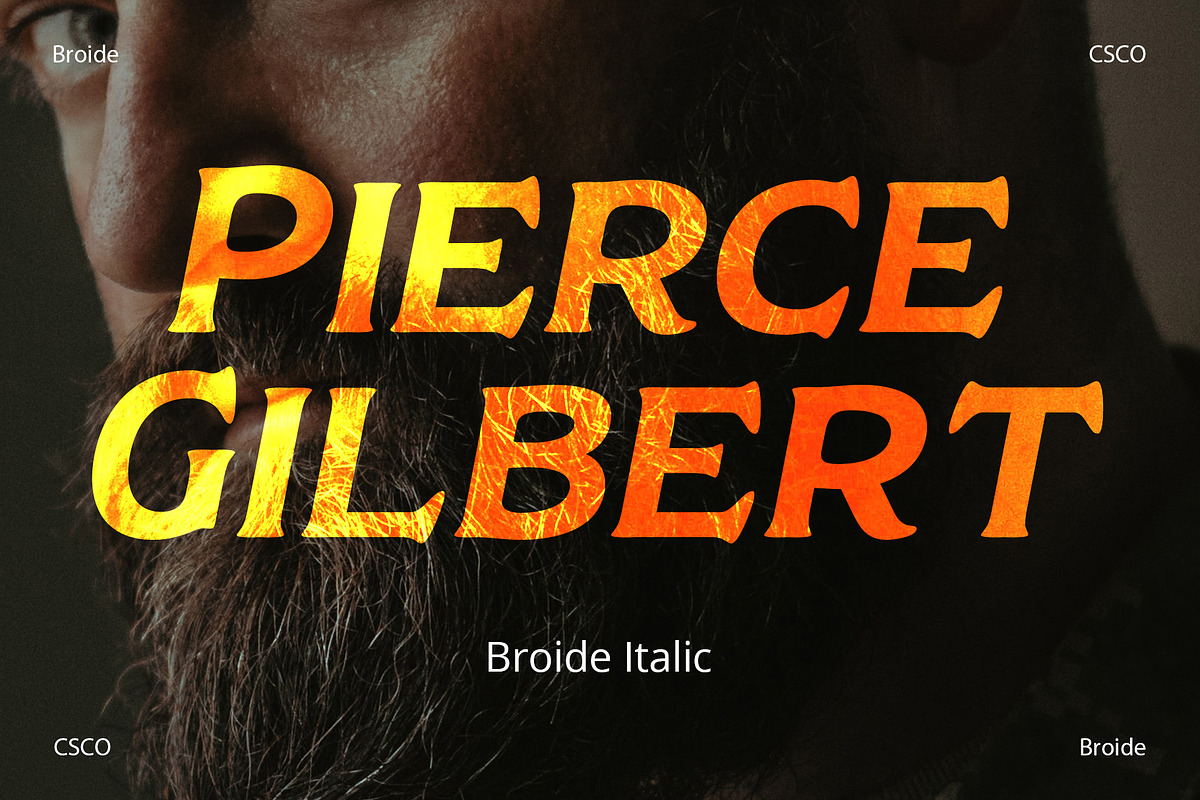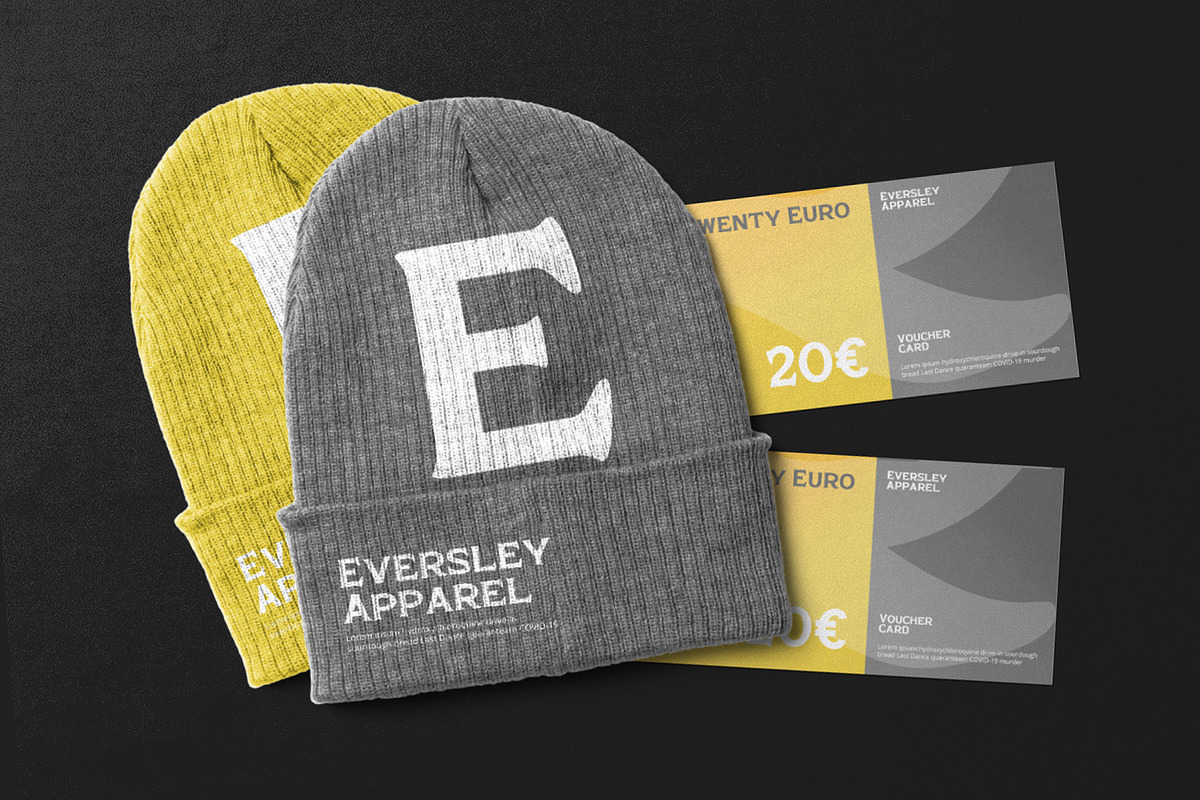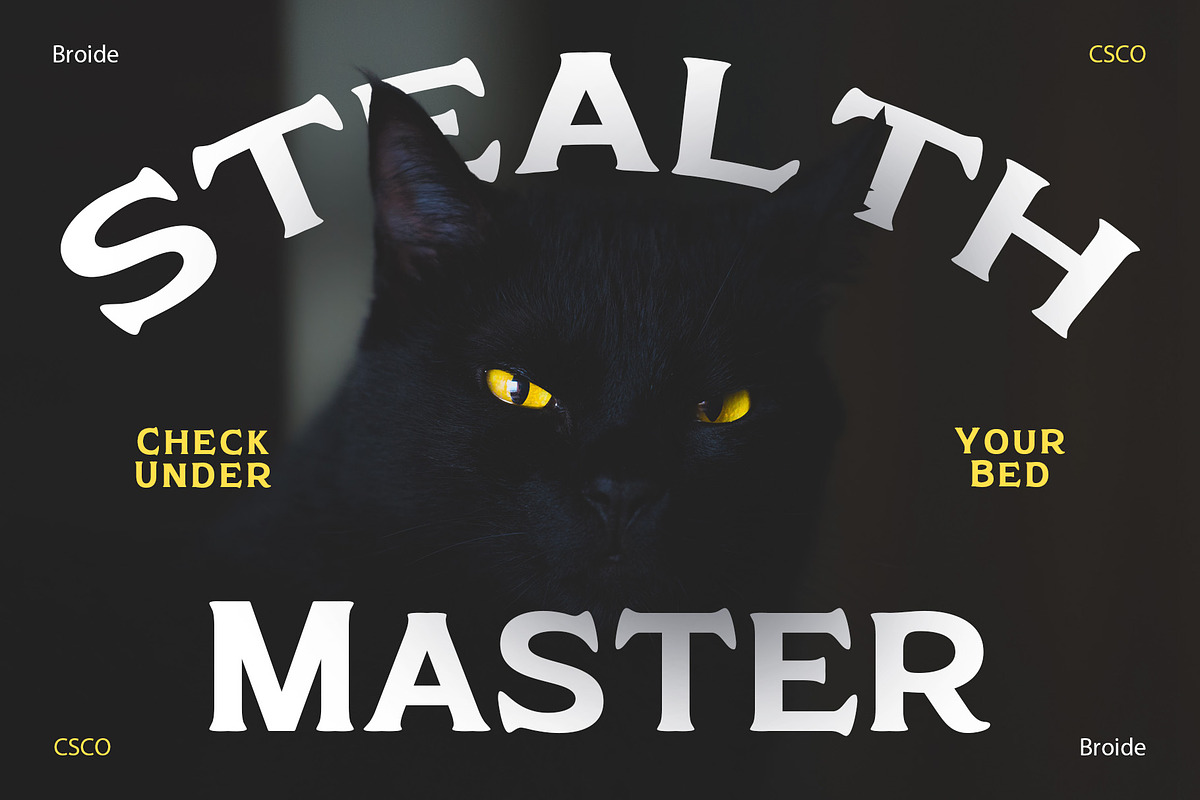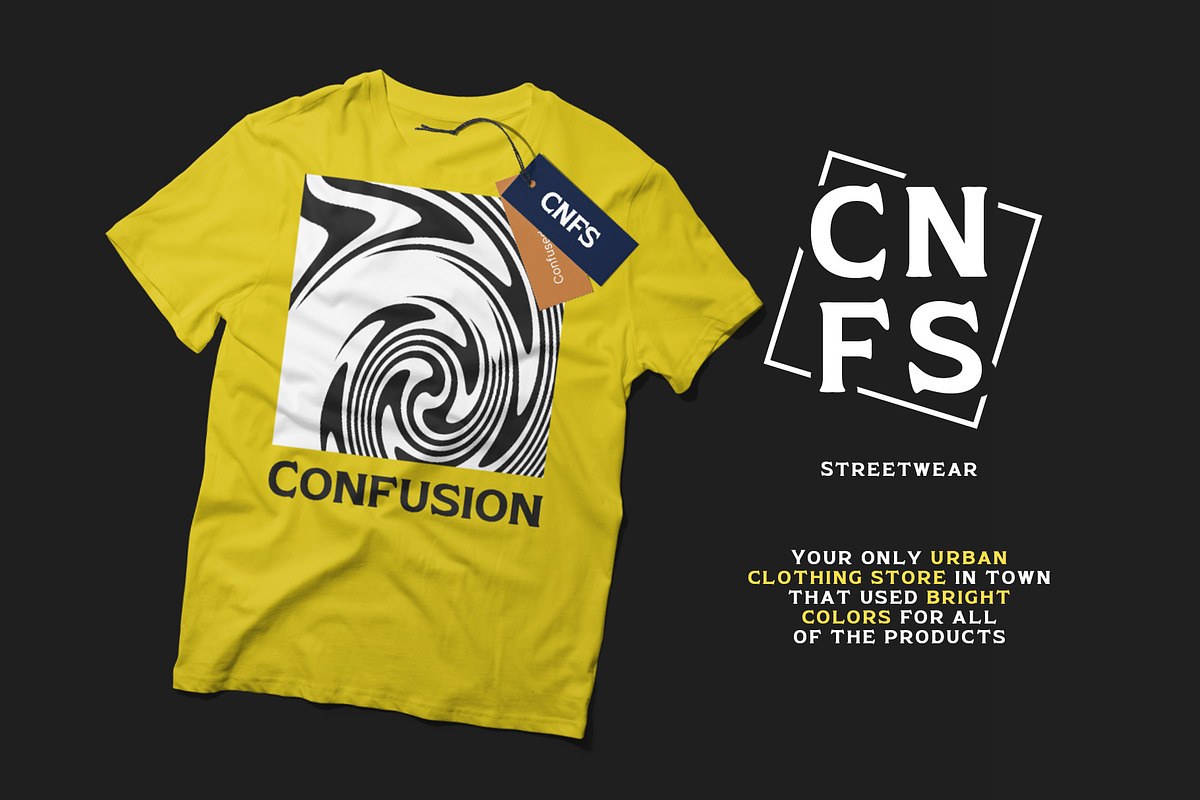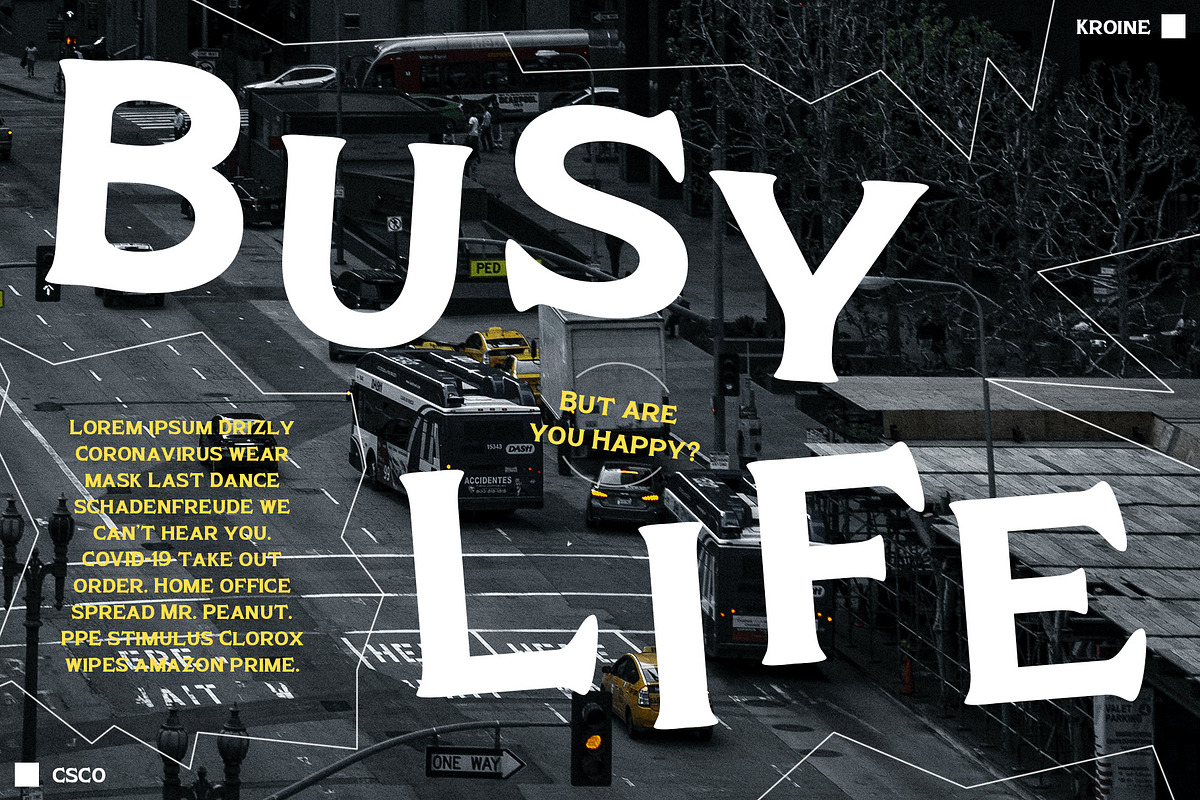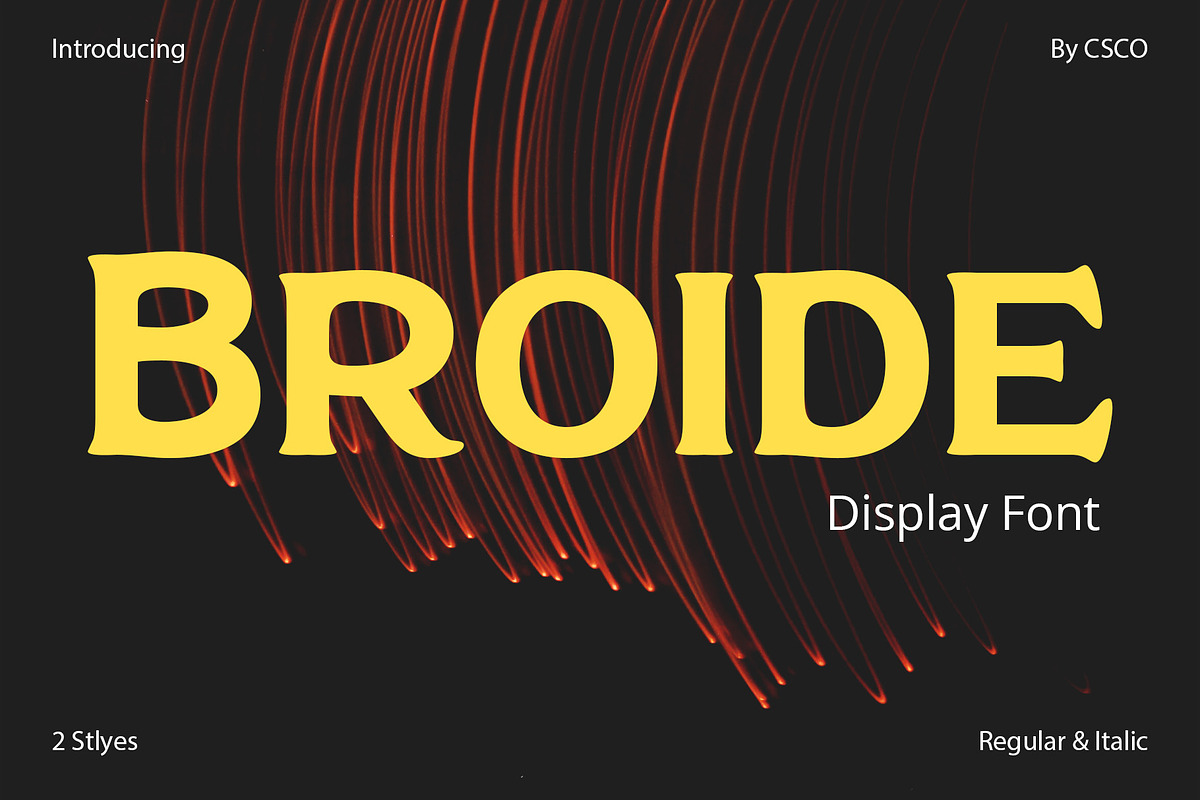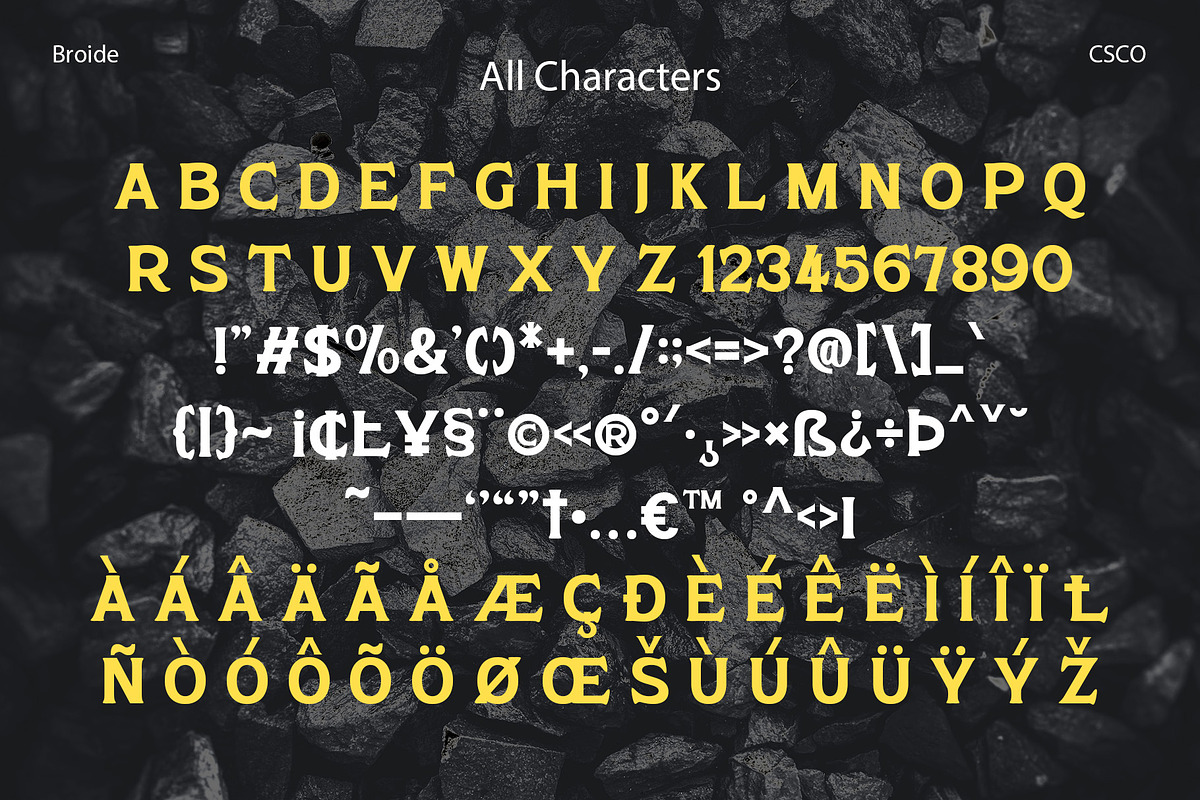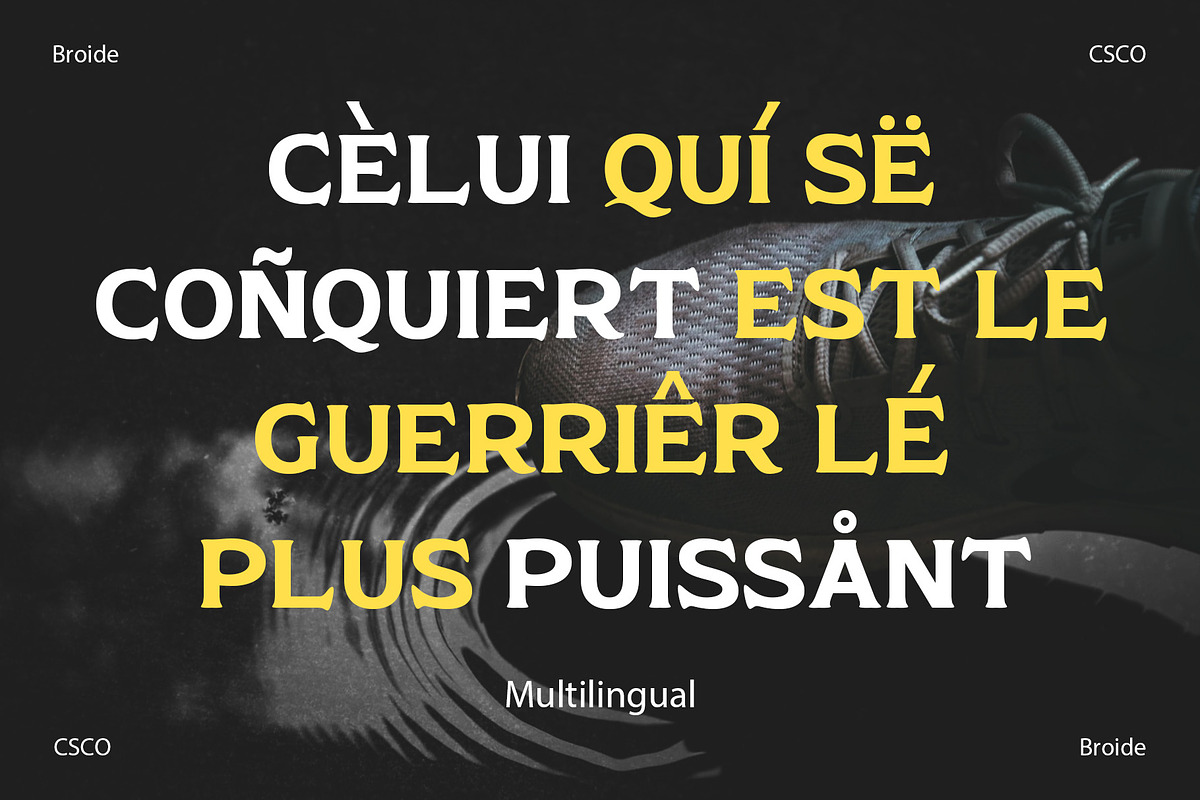
Broide – Display Serif
Broide: Softness Meets Serif Introducing Broide – Display Serif, where softness shapes strength. This bold, low-contrast serif font is friendly. Rounded serifs give it a gentle character. It’s a font that combines clarity with warmth.
A Friendly Touch Broide brings a friendly vibe to your words. Its rounded serifs soften its bold stance. This typeface looks strong yet approachable. It’s ideal for invitations and branding. Also, it’s perfect for creating a welcoming feel.
Soft on the Eyes This font’s soft serifs make reading a pleasure. The low contrast and thick lines ensure legibility. Even at small sizes, Broide is easy on the eyes. Moreover, its friendly nature is suited for both print and digital.
Effortless Integration Using Broide across various media is easy. It fits into your design toolkit without fuss. Its unique charm captivates your audience. Plus, it’s memorable for its soft yet strong appearance.